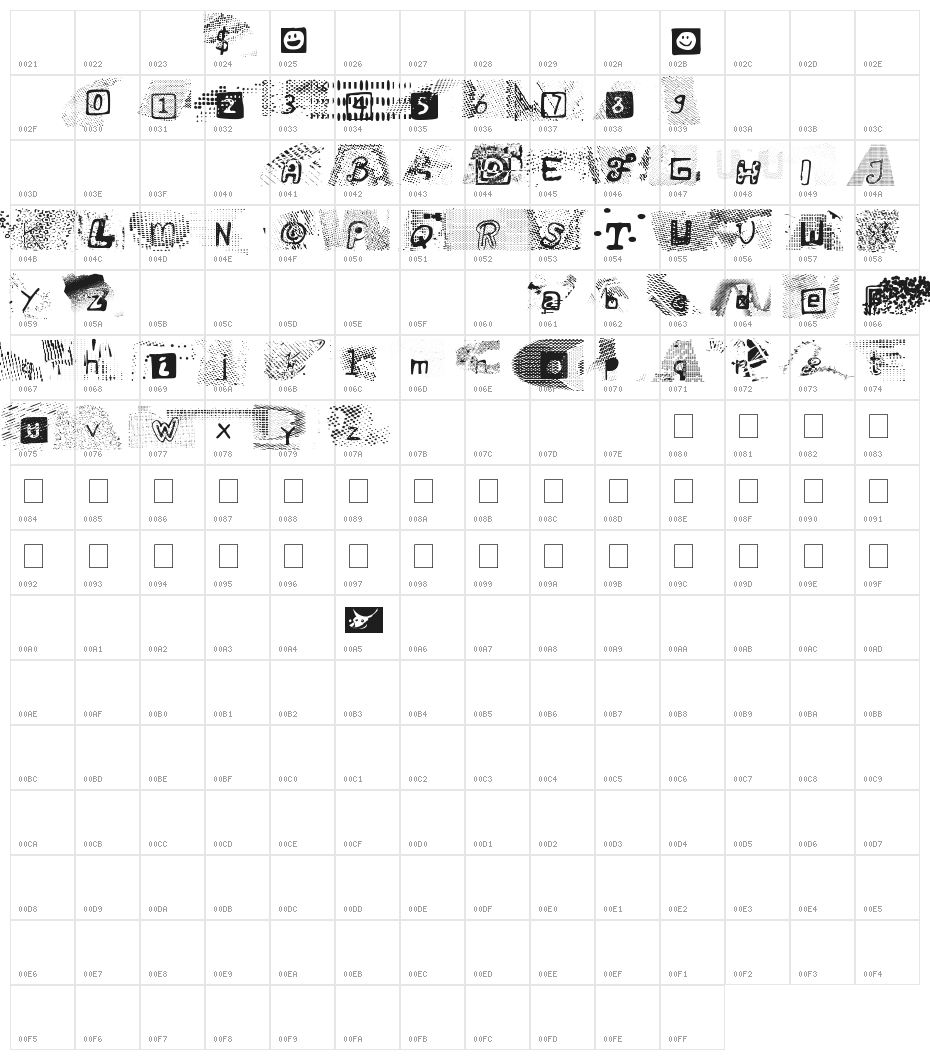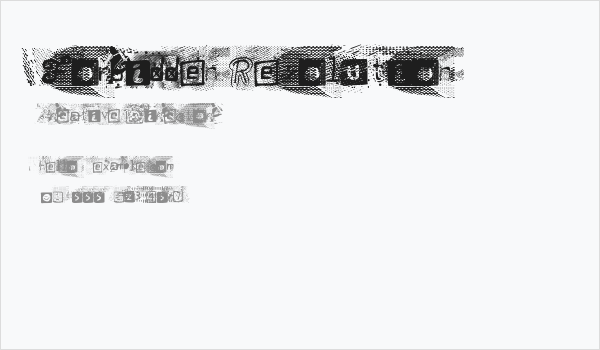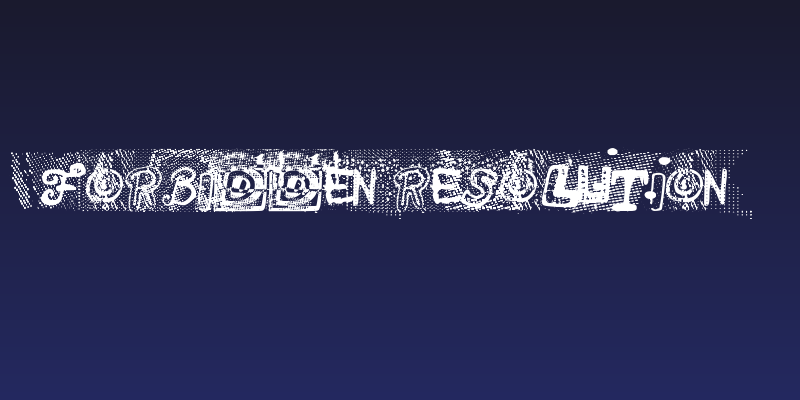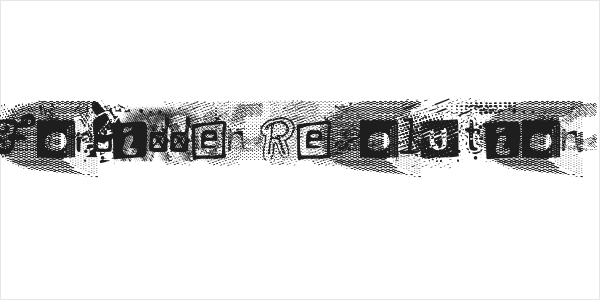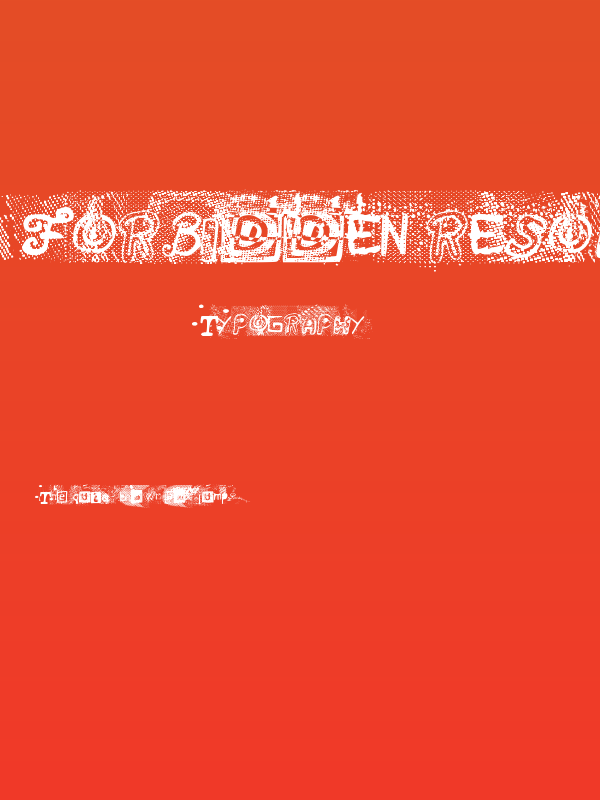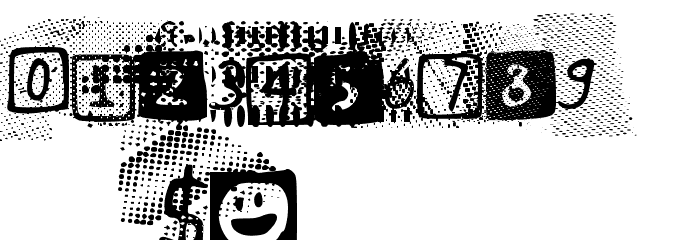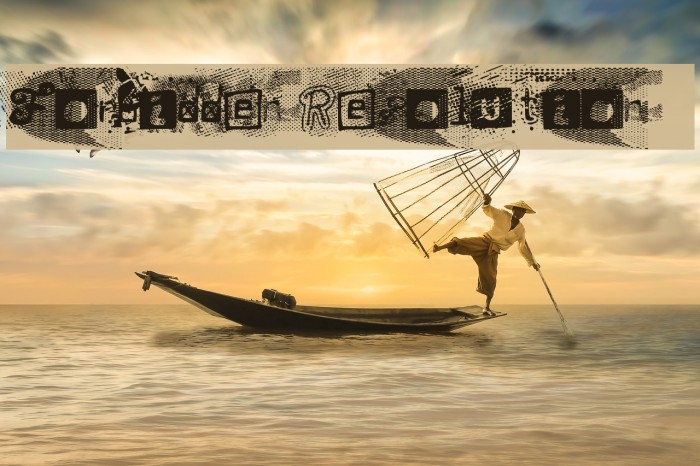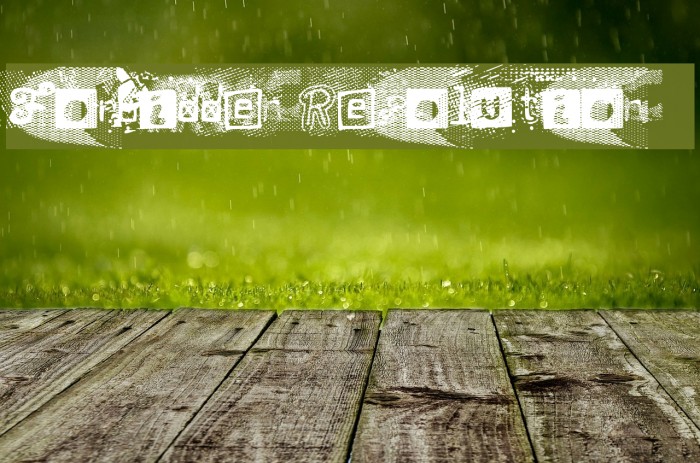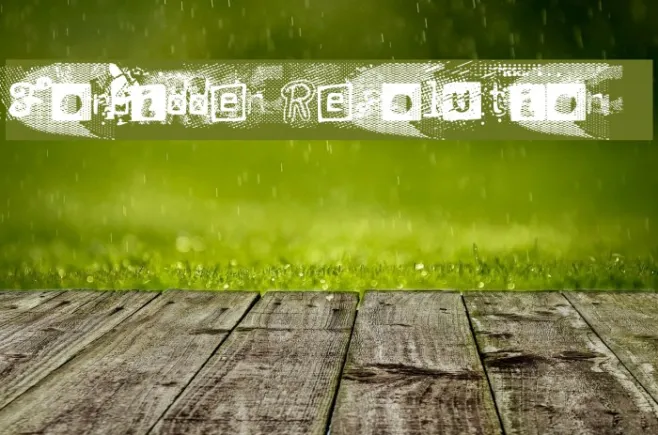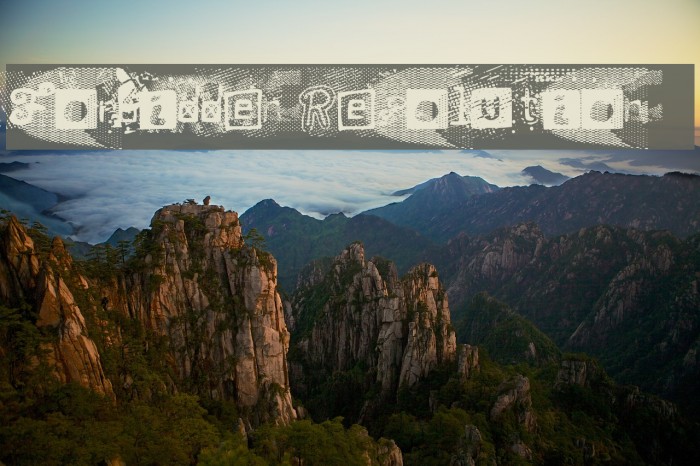
Forbidden Resolution Font
Forbidden Resolution Description
This font exhibits a highly distressed and grunge aesthetic, characterized by irregular shapes and a chaotic, textured appearance. Each character seems to be uniquely distorted, with varying levels of noise and visual interference, giving it a raw and edgy feel. The letters are bold and heavily stylized, with some incorporating abstract patterns and elements that disrupt the traditional form. This creates a sense of movement and energy, making it stand out as a statement piece. The font's unpredictable nature and artistic flair make it suitable for projects that aim to convey a sense of rebellion or non-conformity.
FORBIDDEN-RESOLUTION UPPERCASE
FORBIDDEN-RESOLUTION LOWERCASE
FORBIDDEN-RESOLUTION OTHER CHARS
| Overall Style | Grunge, Artistic, Edgy |
| Proposed Projects | Ideal for album covers, streetwear branding, edgy posters, and alternative magazine layouts. |